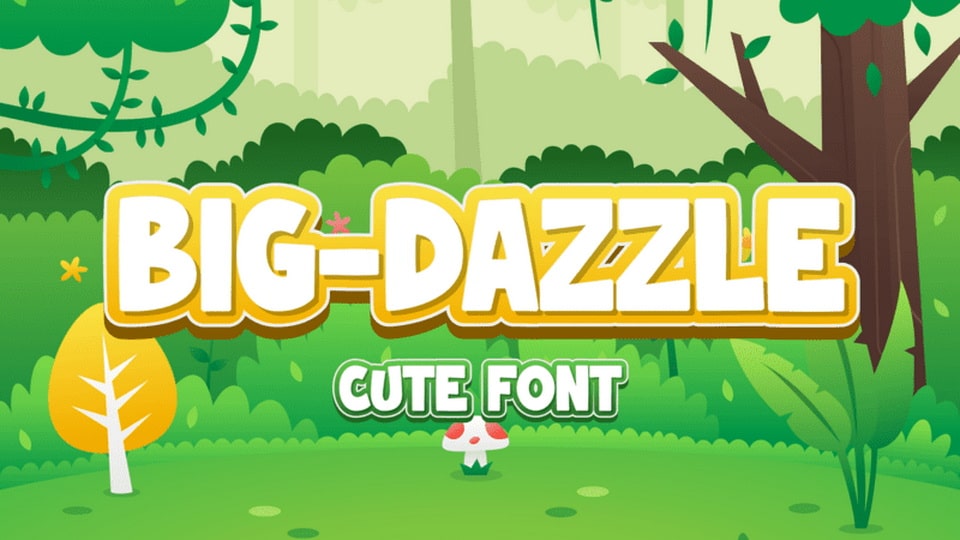
Download Big Dazzle font, a cute cartoon typeface. A font that pops in and brings a smile. Bold and funny shapes will make your word get all the attention you need.